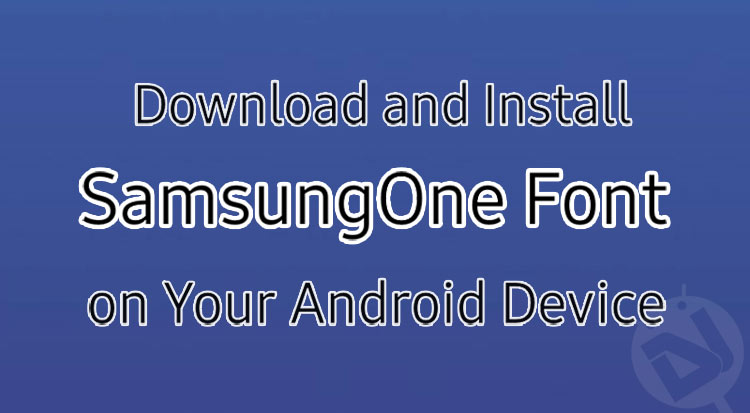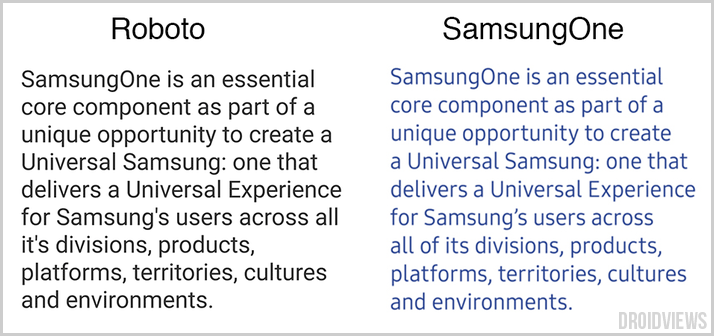
We are living in the era of conspicuous consumerism where branding of products is a thing of utmost importance not only for the manufacturers but also for the consumers. Whether it be toothpaste, a laptop, or car, we naturally tend to be brand conscious while purchasing them. The same thing applies to smartphones too. And when it comes to smartphone brands, Apple, Google, and Samsung are the first names that flash our minds.
Big brands try to brand everything related to their products and thus Apple uses it’s homemade San Francisco font across all its devices, and Microsoft has its custom-made font known as Segoe and Google, the big daddy of Android, uses Roboto on all Android devices by default. Following their course, the Korean giant Samsung has crafted a new font named SamsungOne that it plans to use on all Samsung products including smaller products like smartphones to larger ones like Smart TVs and refrigerators and even product marketing and advertisements.
The enormity of the company’s SamsungOne endeavor can be guessed by the very fact that it supports 400 languages through the deployment of 25,000 glyphs or characters to make it a truly global typeface. Samsung has provided all details about the new font on its official blog.
Below is an image showing the difference or comparison between the all new SamsungOne font and the good old Roboto which we see on our Android devices.